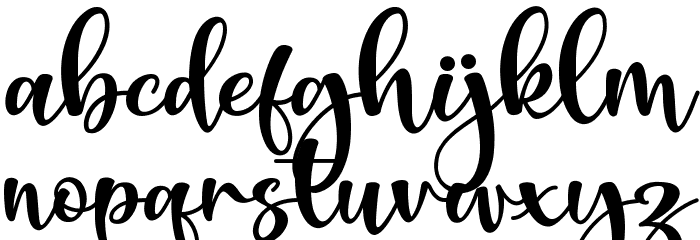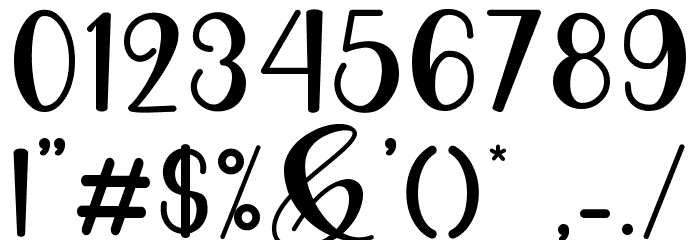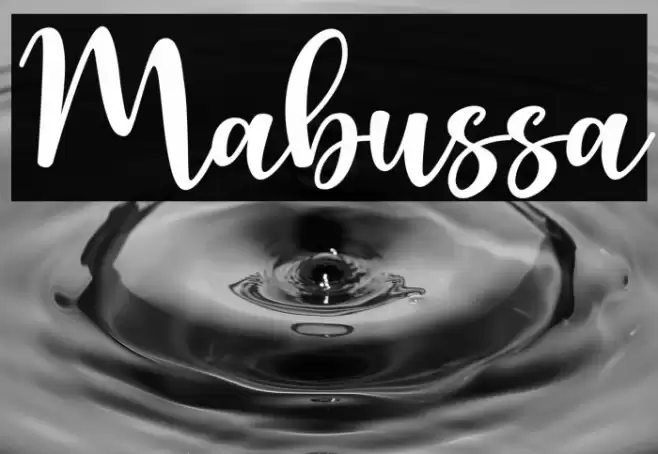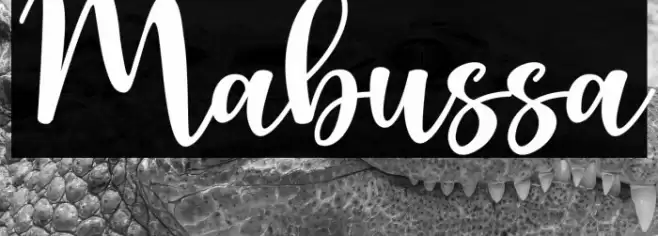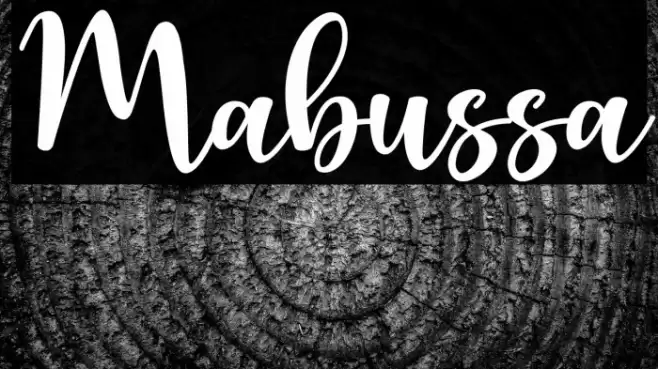
Mabussa Font
This font exudes a playful and elegant charm, characterized by its flowing script style and smooth, rounded edges. The uppercase letters are gracefully connected, while the lowercase letters maintain a consistent, fluid motion, enhancing its cursive appeal. The numerals are bold and slightly whimsical, complementing the overall aesthetic. Special characters are crafted with the same attention to detail, ensuring a cohesive look across all glyphs. This font's design is both modern and timeless, making it versatile for various creative applications.
A playful and elegant script font with smooth, flowing characters.